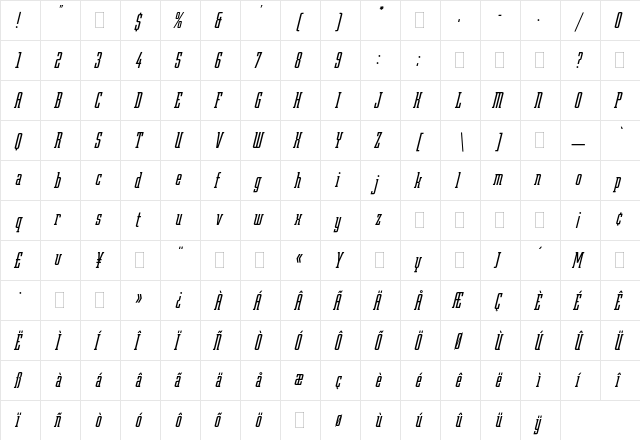
Robotik Italic Plain
Design Context for Robotik Italic Typeface
Robotik Italic takes a measured approach to typography — its balanced proportions and neutral character make it a reliable workhorse for both digital and print work. The dynamic lean of this cut emphasises speed and emphasis in any layout.
Pro Tip: Try Robotik Italic for annotation and caption copy alongside an upright companion — the contrast in angle creates a dynamic but ordered typographic system.